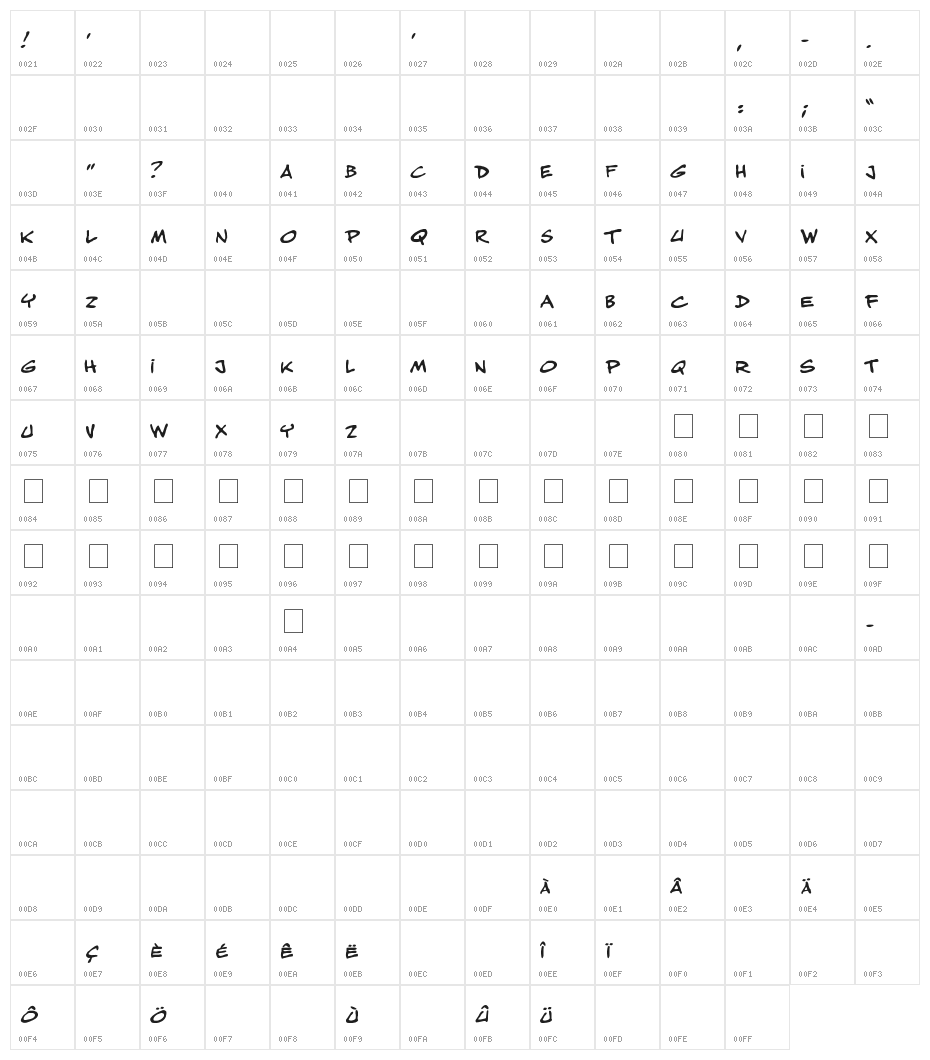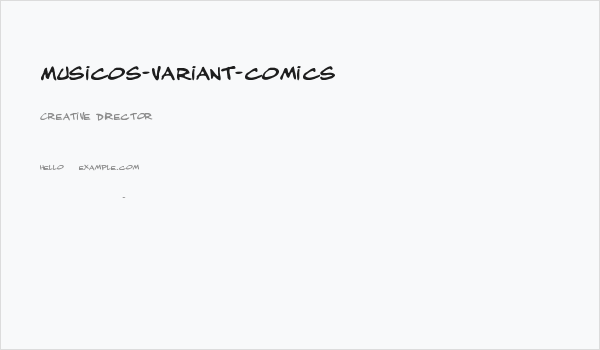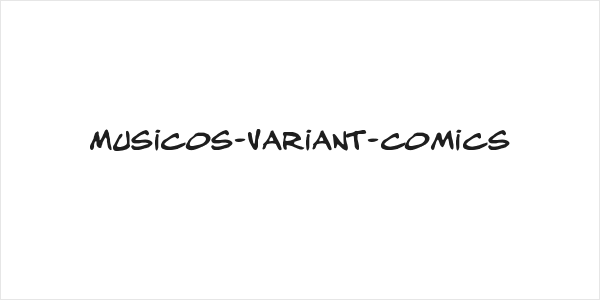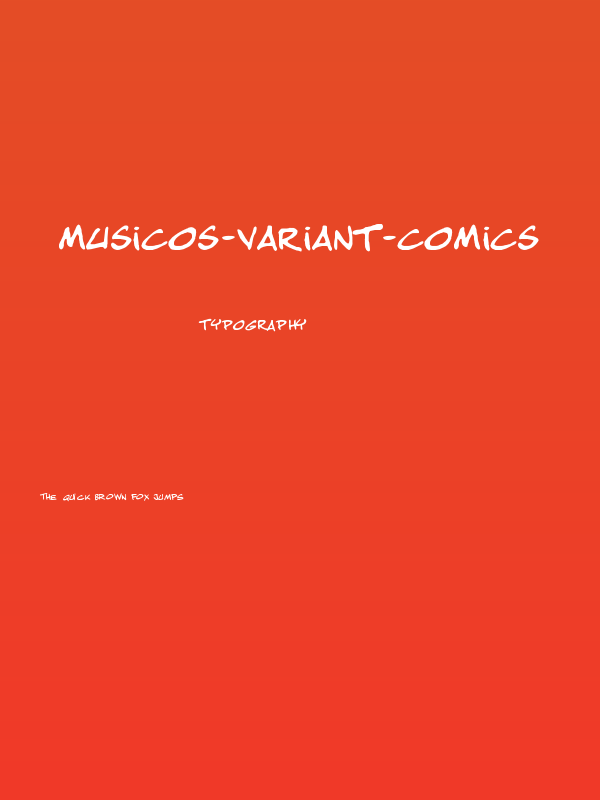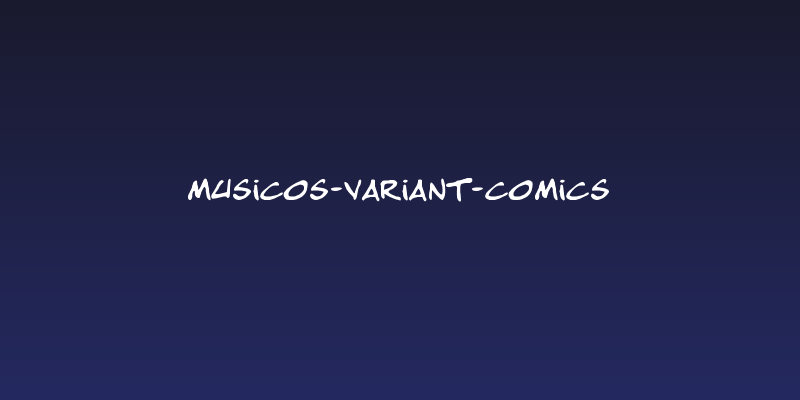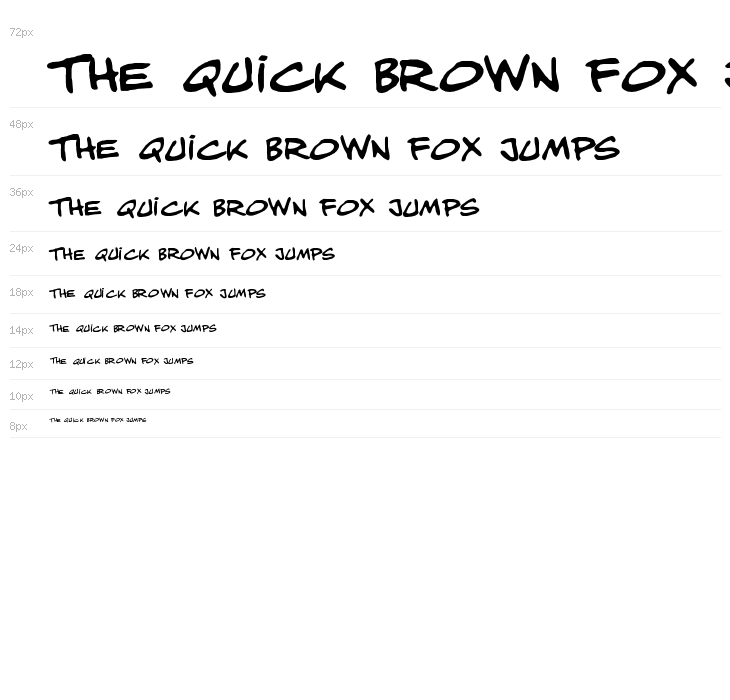
Musicos-variant-comics Font
Musicos-variant-comics Description
This font exhibits a playful and energetic style, characterized by its bold, hand-drawn appearance. The uppercase letters are slightly irregular, adding a whimsical touch, while maintaining readability. The strokes are thick and rounded, giving a friendly and approachable feel. The font's informal nature makes it suitable for creative and casual contexts. The spacing between characters is moderate, ensuring clarity without sacrificing its dynamic look. This font is ideal for projects that require a fun and lively aesthetic, such as comic books, children's books, or playful branding.
| Proposed Projects | Comic books, children's books, playful branding, casual invitations, and creative posters. |